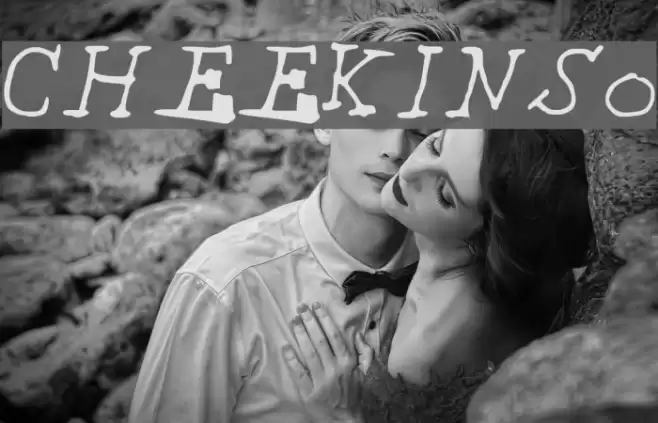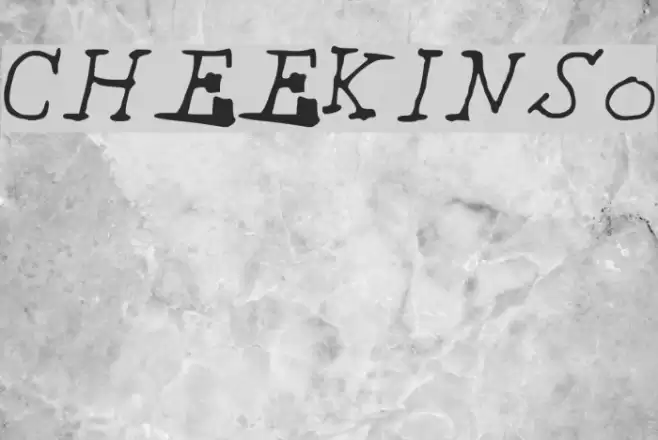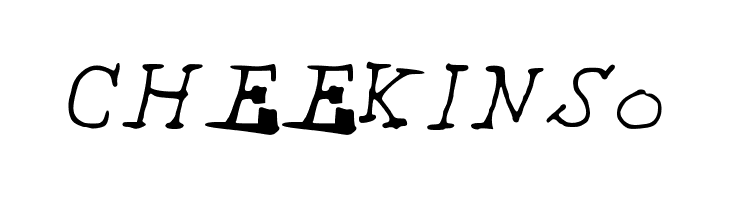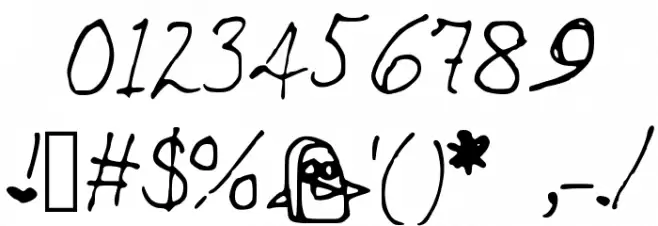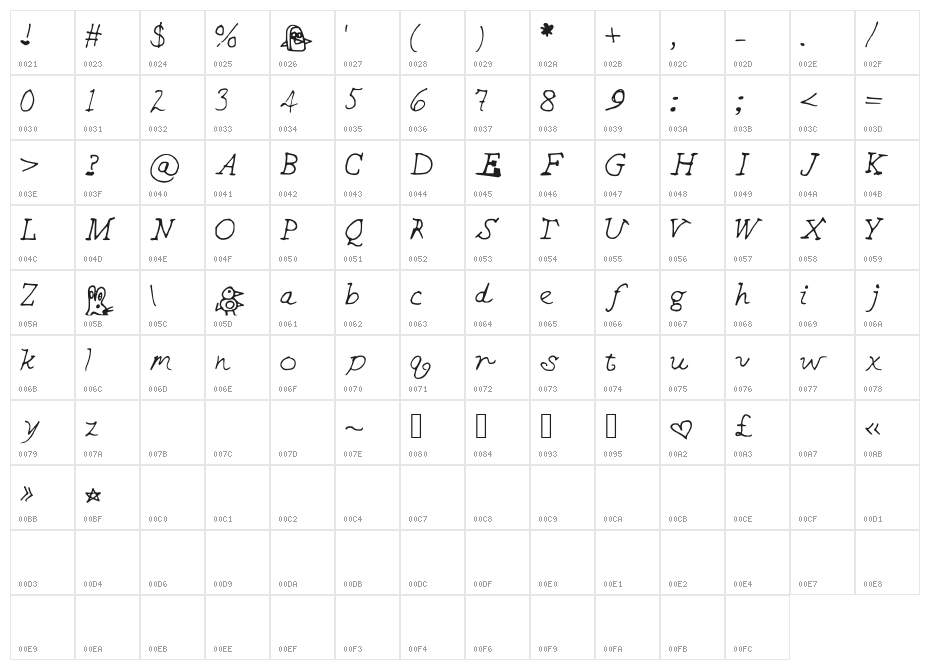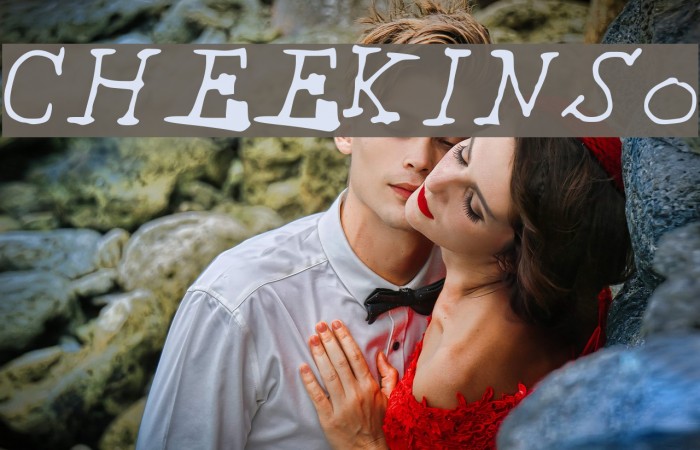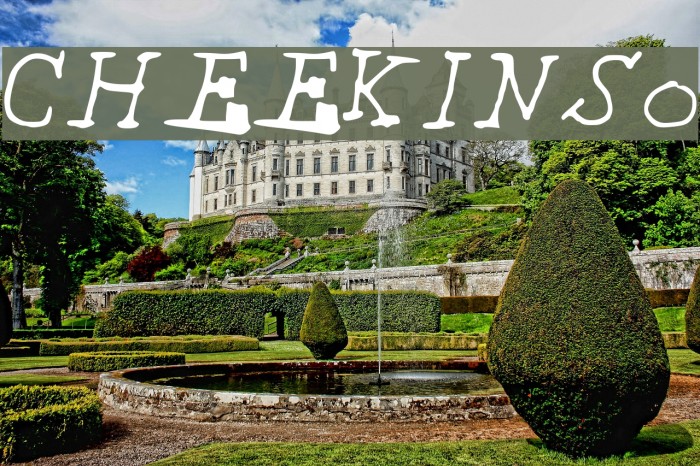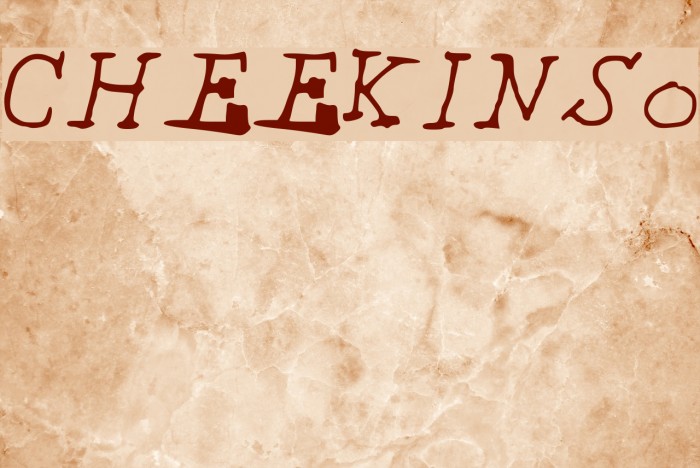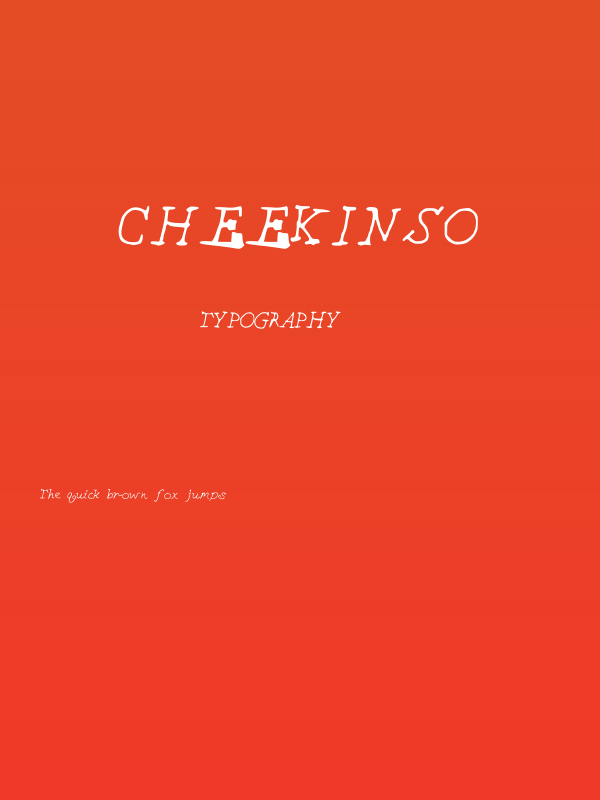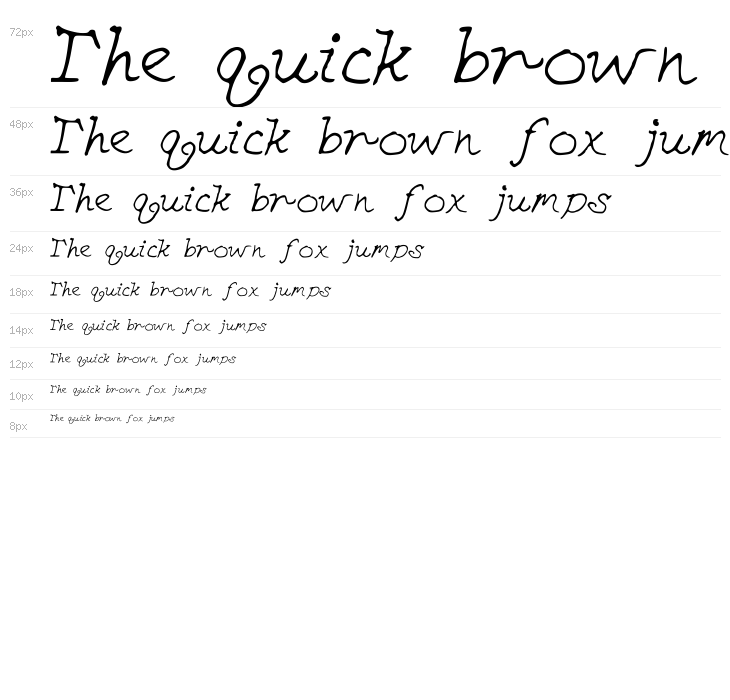
CHEEKINSo Font
CHEEKINSo Description
This font exhibits a playful and whimsical style, characterized by its uneven and hand-drawn appearance. The uppercase letters have a quirky, slightly tilted form, while the lowercase letters maintain a consistent, flowing script-like quality. The numbers are distinct and maintain the same playful aesthetic, with some characters featuring exaggerated curves and angles. Special characters are creatively designed, adding to the font's unique charm. Overall, this font exudes a sense of fun and creativity, making it ideal for projects that require a lighthearted and informal touch.
A playful, hand-drawn font with a whimsical and creative style from Uncategorized fonts.
- Proposed Projects: Ideal for children's books, playful branding, greeting cards, and creative posters.
- Use Case: Logos, Headlines, Informal Text